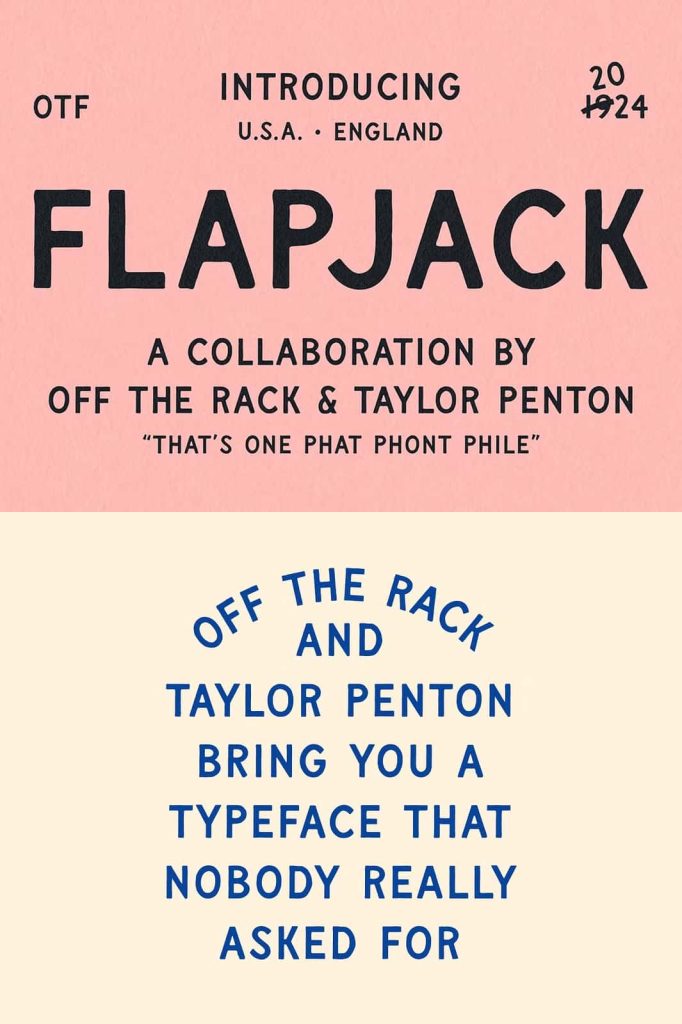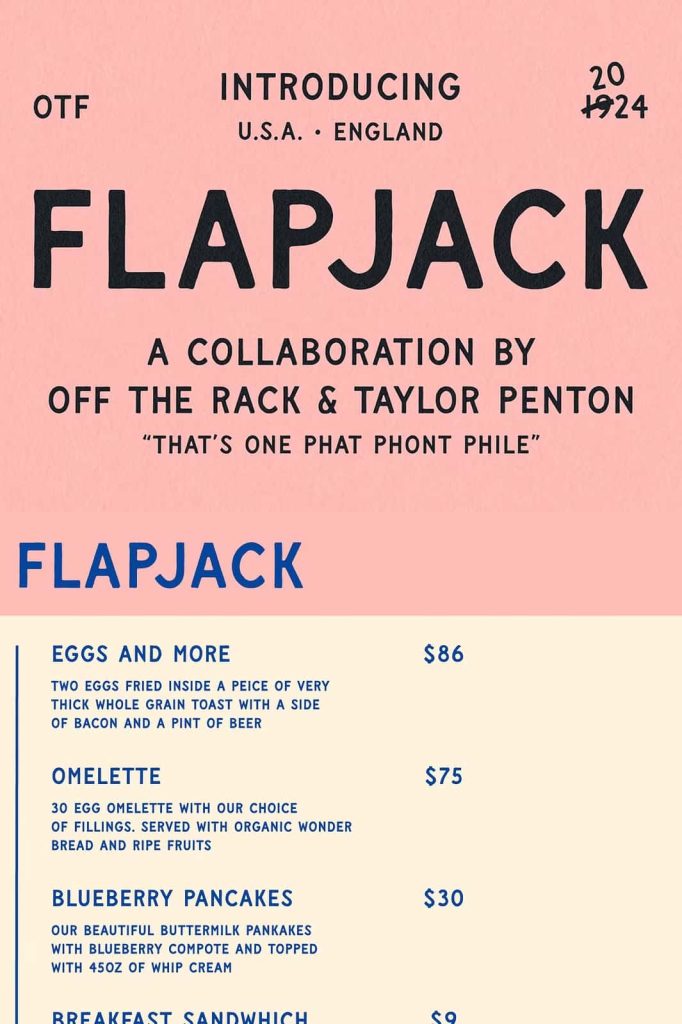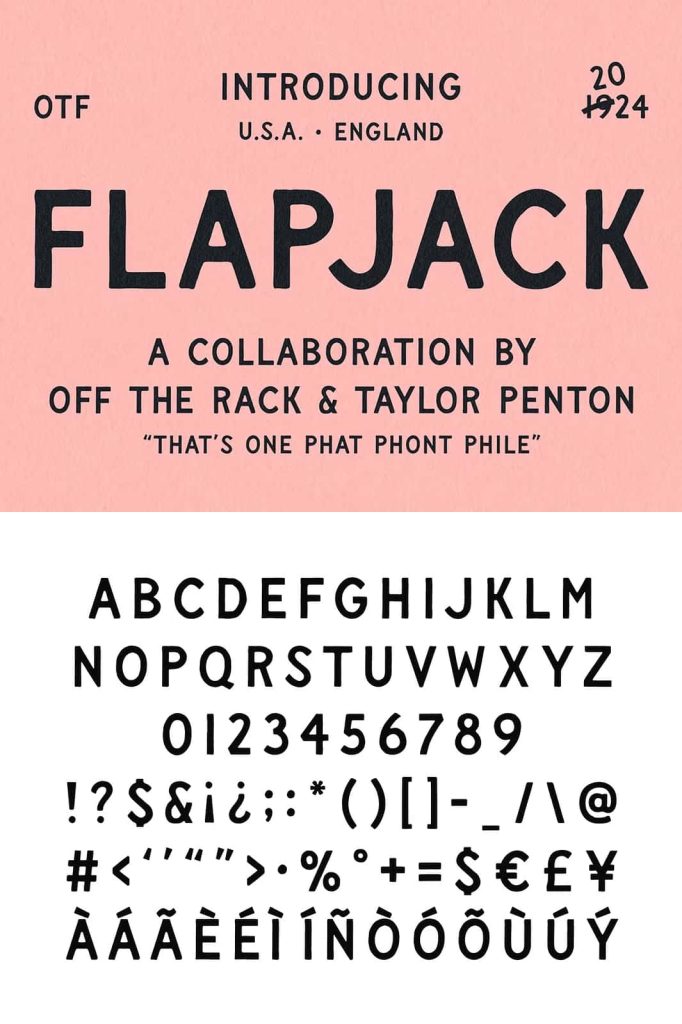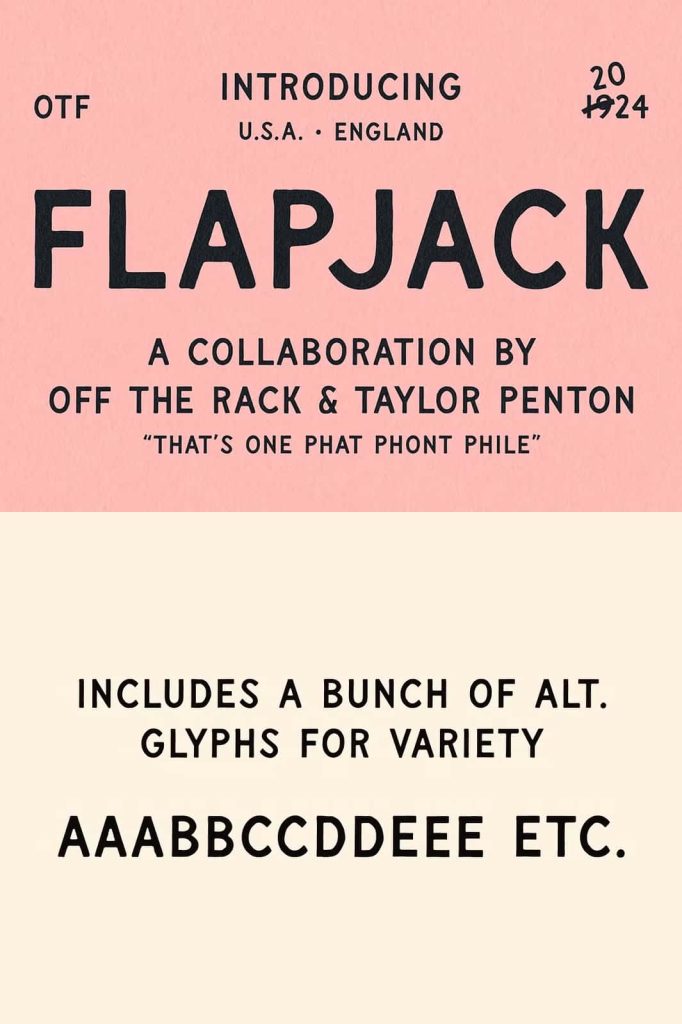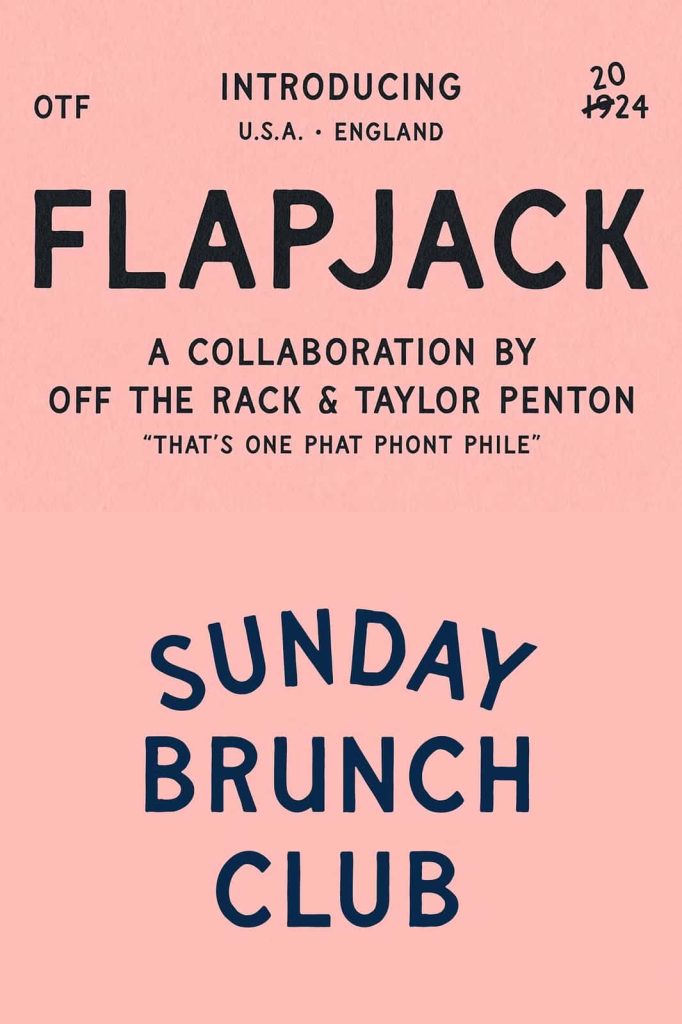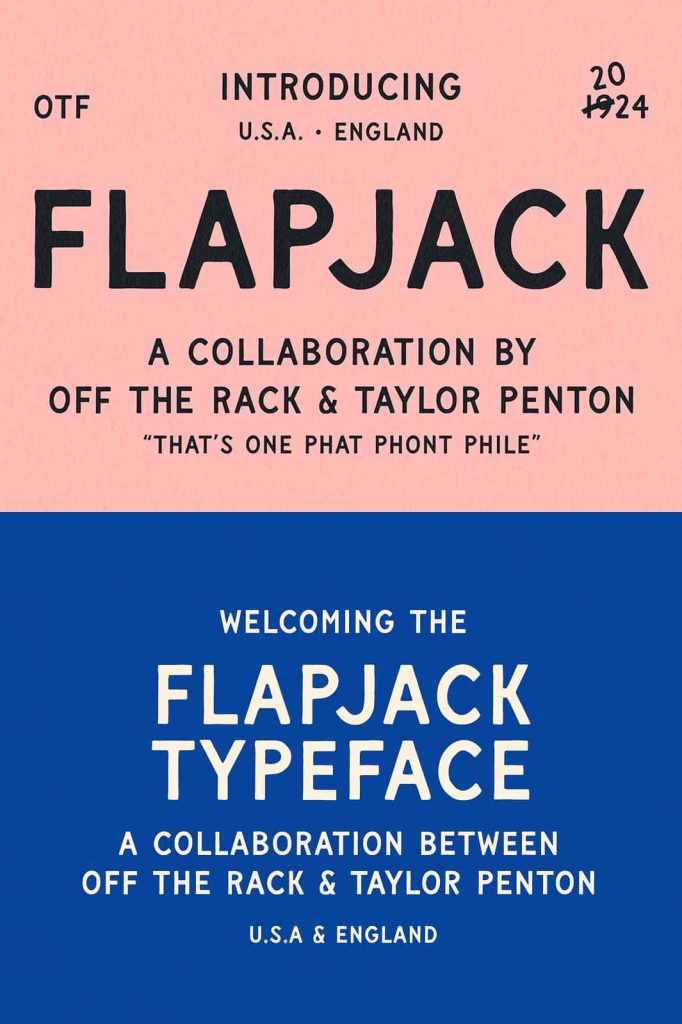
Flapjack | Vintage Hand Drawn FontleastedMarch 16, 2025Fonts Flapjack is a vintage-inspired hand drawn font, referencing old shop signs and painted billboards of the early 20th century. Download